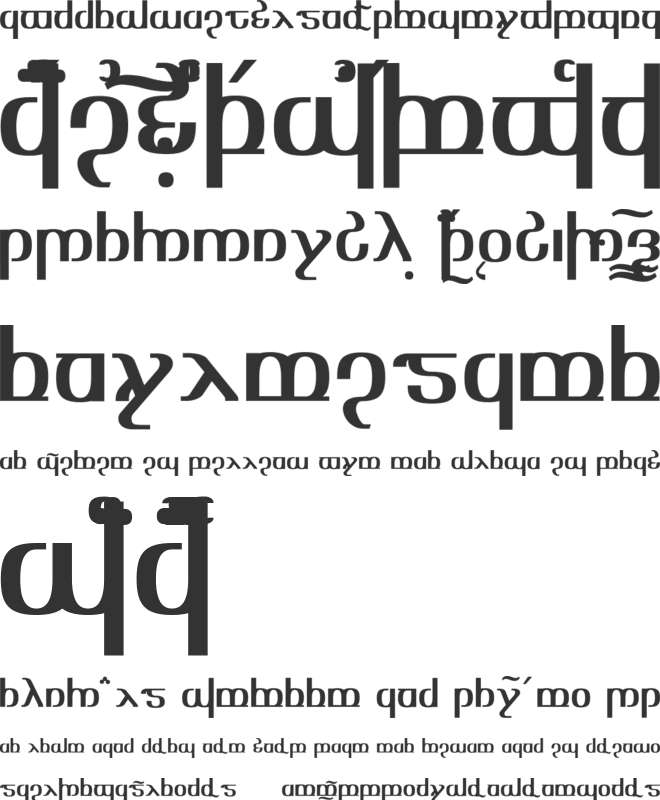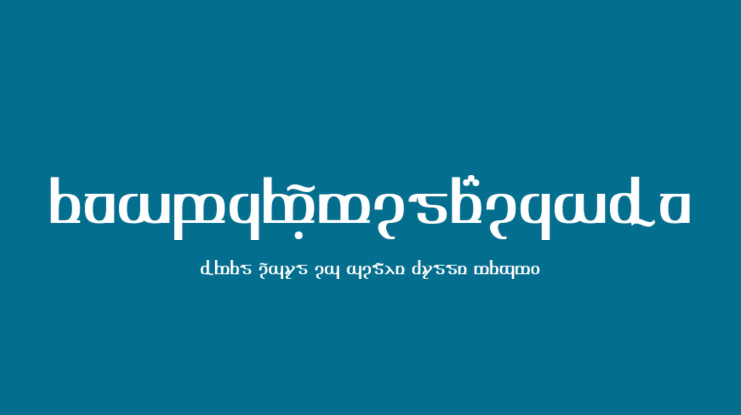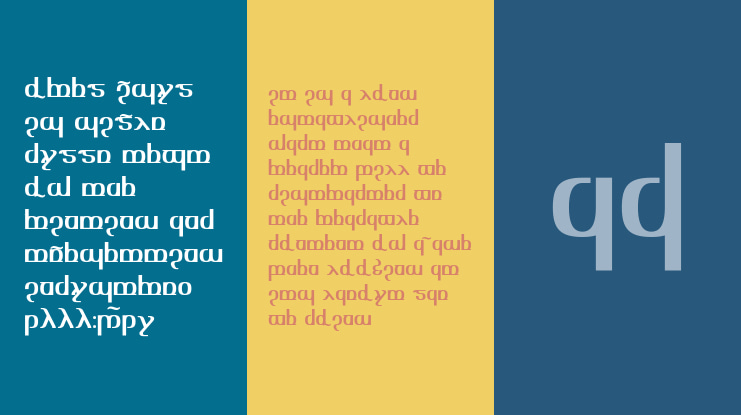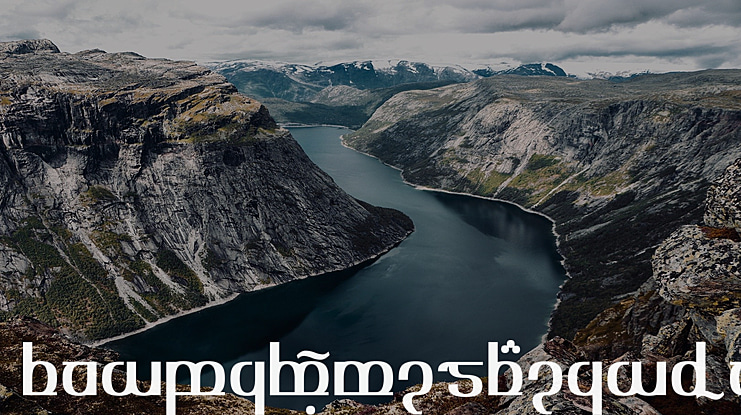
TengwarOptimeDiagon Font Family
Google Translate says:And here now, as all good things come in three, my third interpretation of the same script by JRR Tolkien Tengwar Optime is an organic sans Tengwar, so a pamphlet for Quenya Sinarin and of course for all other languages​​, if you want to write in Tengwar .